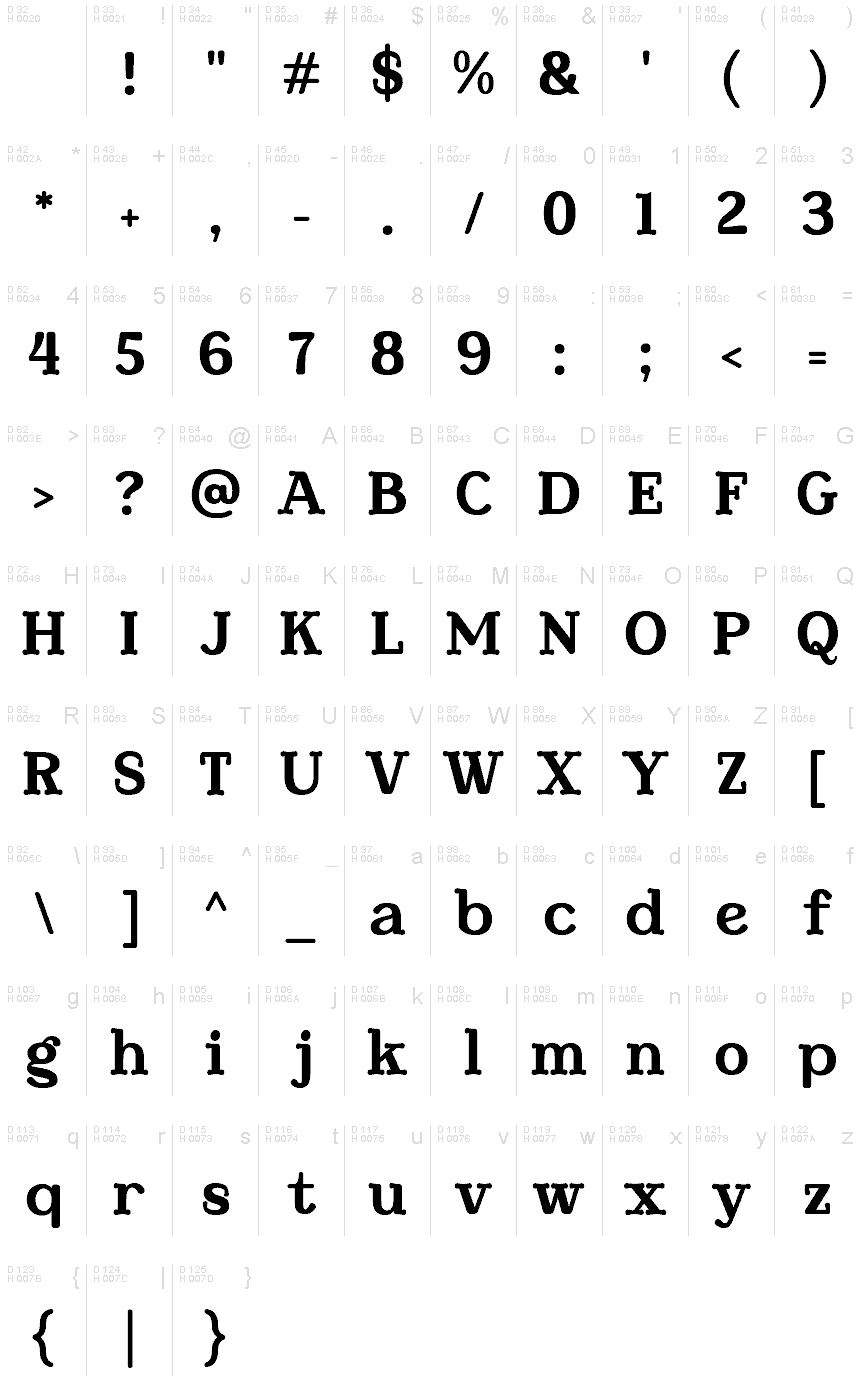
Kitward Demo
Kitward font is brought to you by Faqih Fawaji of Drizy Studio with an eye for details and perfection. Its body creates a strong presence with a classic appearance and vintage-inspired design that feels authoritative in both titles and longer texts. There’s traditional elegance, but also modern minimalism which can be used to reach all types of audiences. Remember that this one is entirely free!
Particularly made for big-size titles, Kitward is suitable for magazines, books, publishing work, newspapers, invitations for various events such as weddings or parties etc. It’s cabinet friendly too where it fits into graphics like logos or patterns on products and stickers/labels as well!